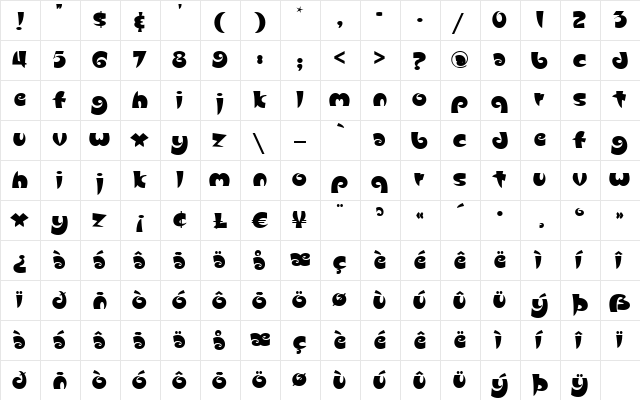
Slugfest Itc Regular
Design Context for Slugfest Itc Typeface
Slugfest Itc is a composed and adaptable typeface that performs quietly and consistently across a wide range of design contexts.